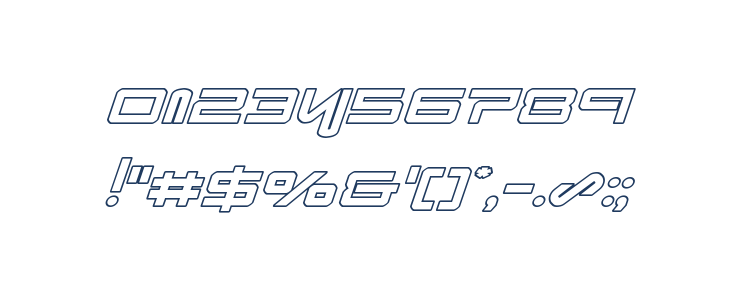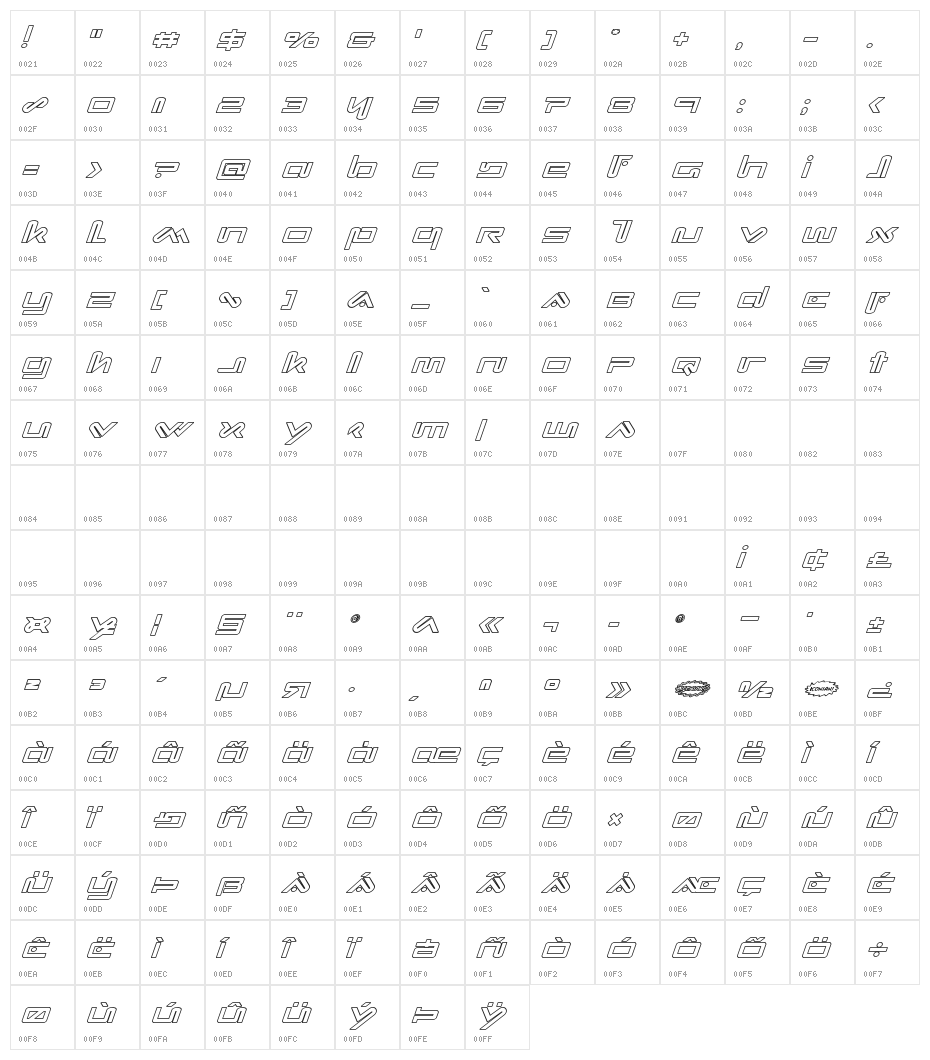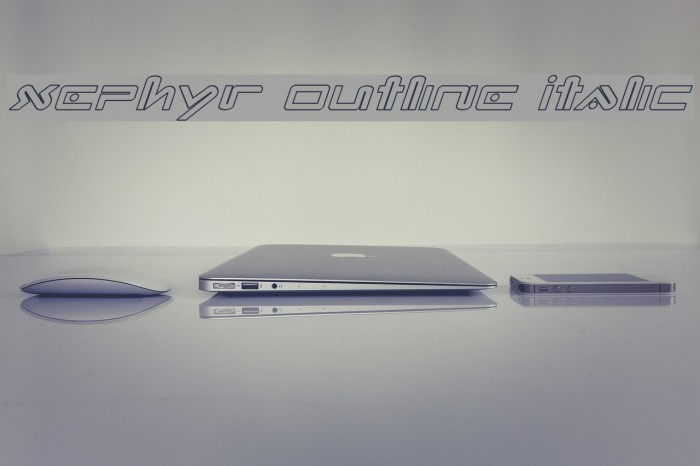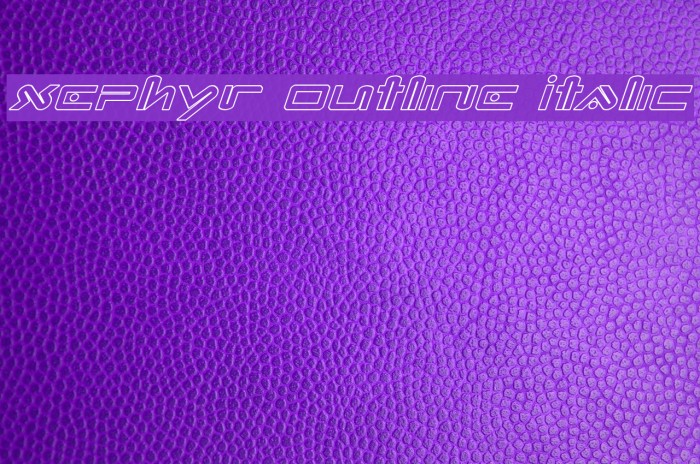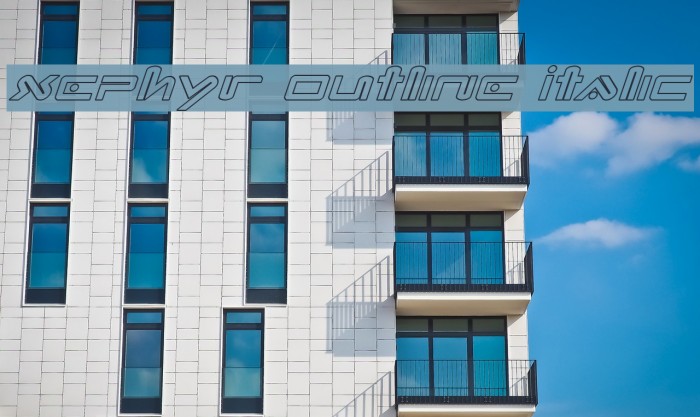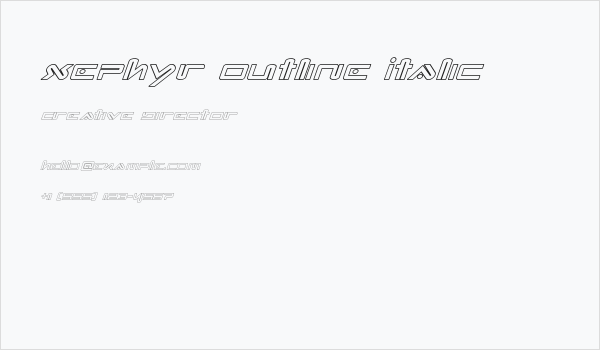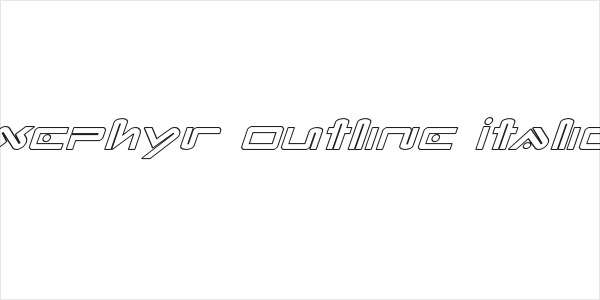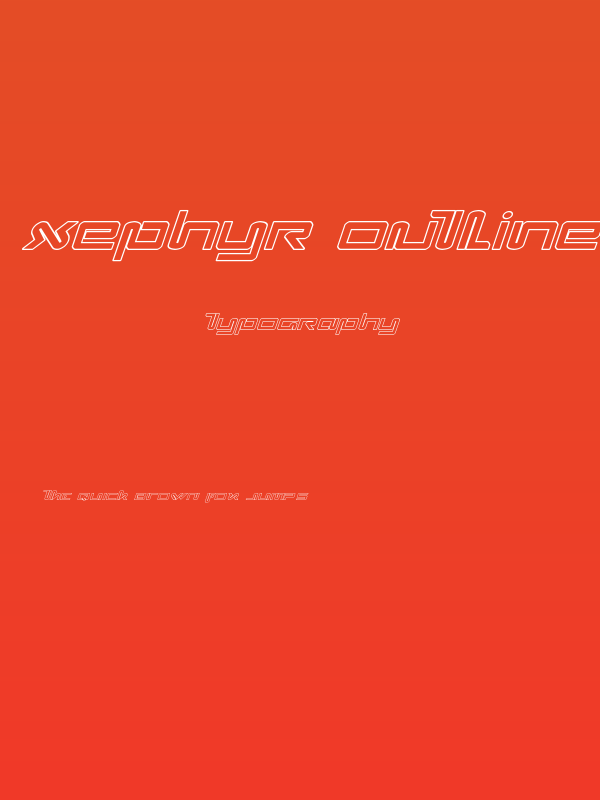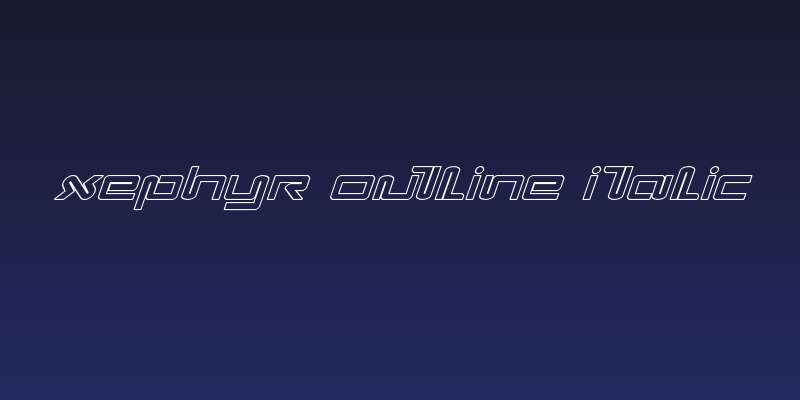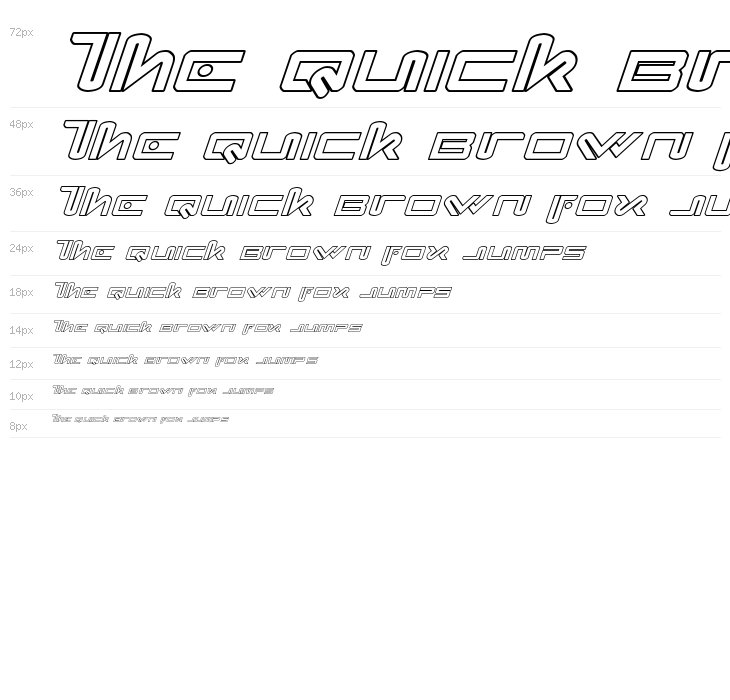
Xephyr Outline Italic Font
Xephyr Outline Italic Description
This font features a unique outline style with a futuristic and geometric design. Each character is crafted with clean, sharp lines and an italic slant, giving it a dynamic and forward-moving appearance. The uppercase and lowercase letters maintain a consistent style, with angular shapes and a distinct outline that enhances readability while adding a modern touch. The numbers and special characters follow the same design principles, ensuring uniformity across all glyphs. This font's outline nature makes it suitable for creating eye-catching designs where the text needs to stand out without overwhelming the overall composition.
| Proposed Projects | Ideal for sci-fi themed designs, tech branding, posters, and digital artwork. |